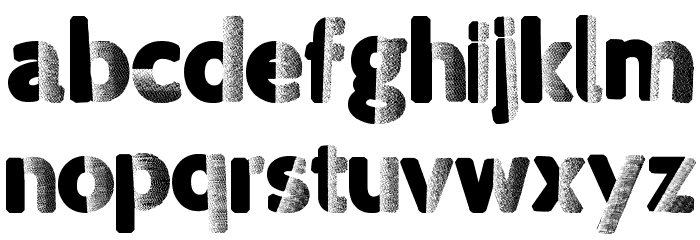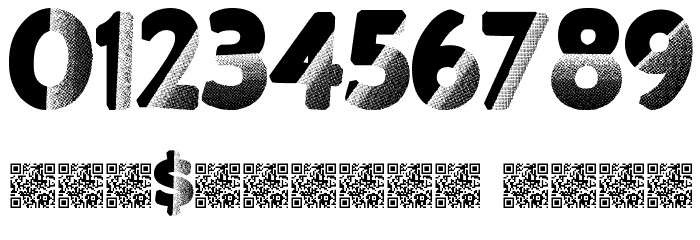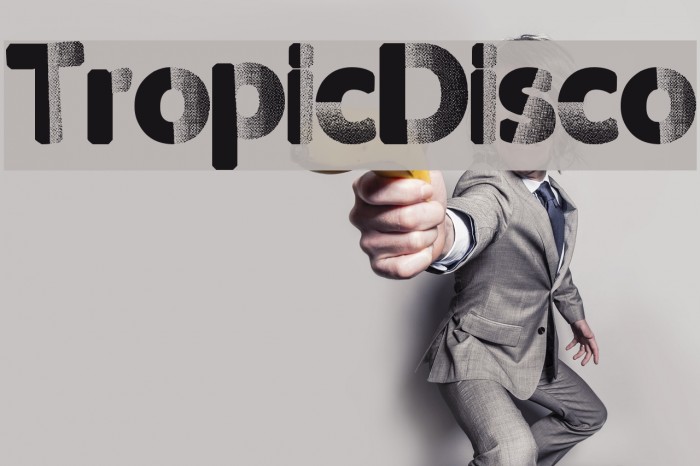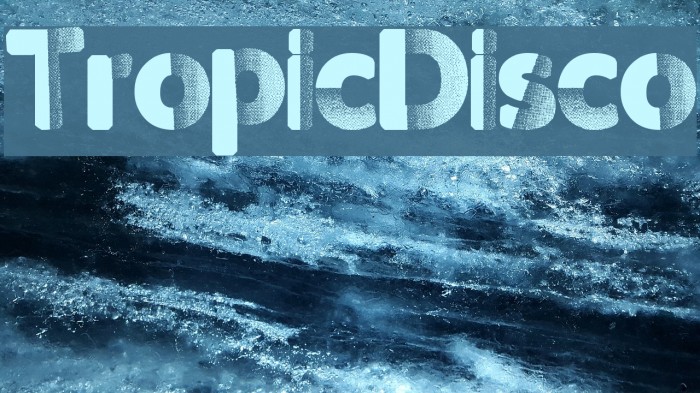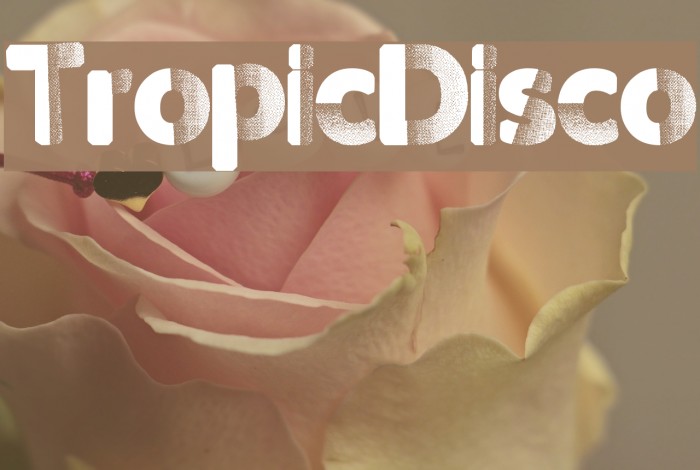
TropicDisco Font
This font features a bold, decorative style with a unique halftone texture that gives it a dynamic and playful appearance. The characters are wide and rounded, with a distinct contrast between the filled and dotted areas, creating a sense of movement and energy. The uppercase and lowercase letters maintain a consistent style, while the numerals and special characters complement the overall design. This font is ideal for projects that require a bold and eye-catching display, such as posters, album covers, or branding materials. Its distinctive texture and modern flair make it suitable for creative and artistic applications.
A bold, decorative font with a halftone texture and dynamic style.
- Proposed Projects: Posters, album covers, branding materials, creative displays.
- Width: Expanded